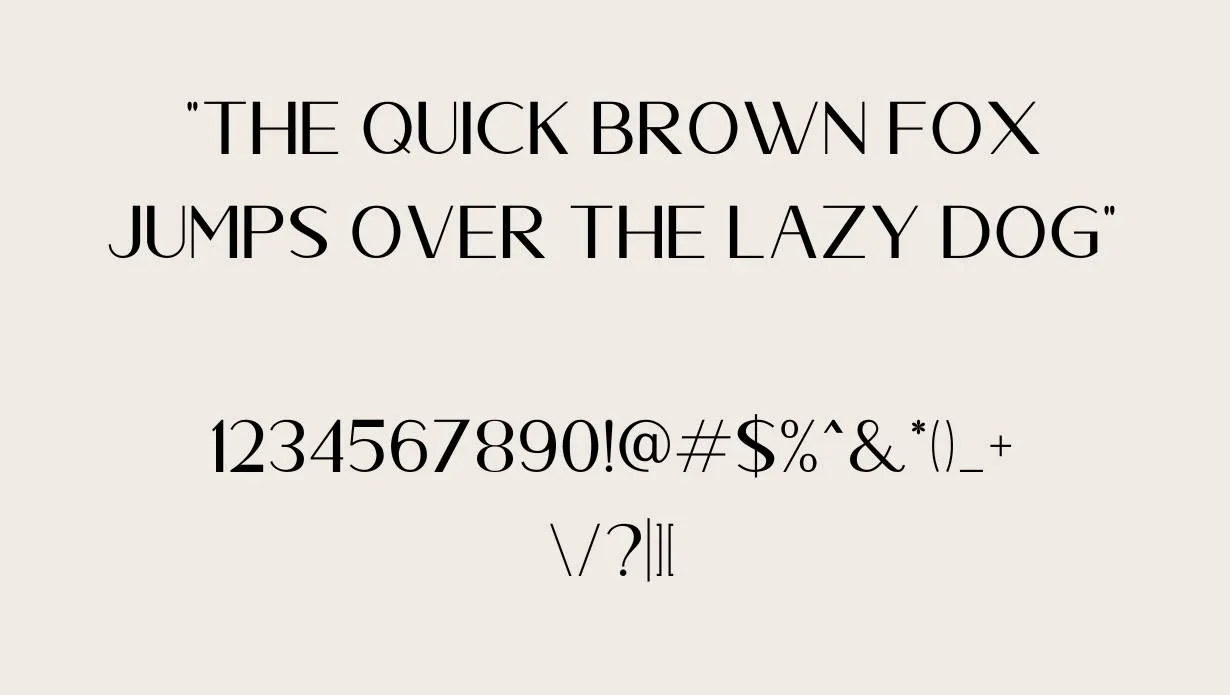
Abenda Elegant Font is a refined and graceful typeface known for its sophisticated and stylish appearance. Its delicate design makes it perfect for luxury branding, formal invitations, and elegant editorials.
| Name | Abenda Elegant |
| Designer | Pen Culture |